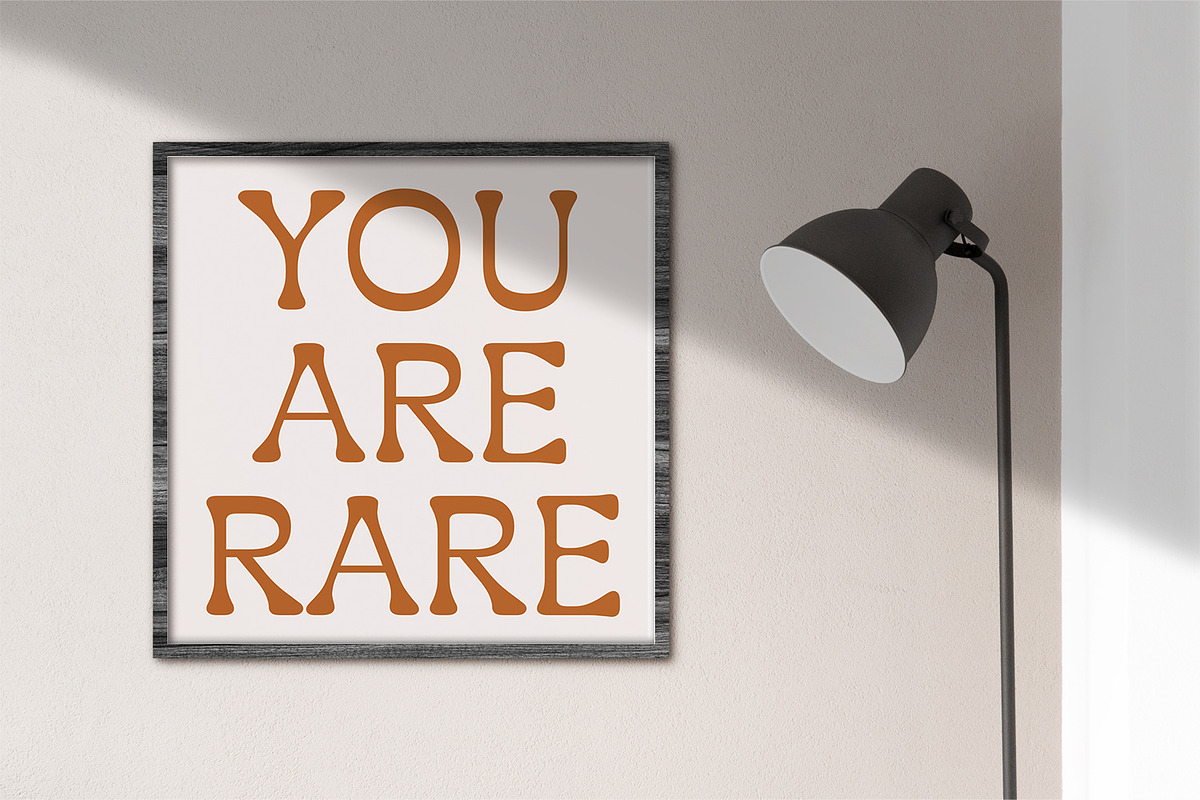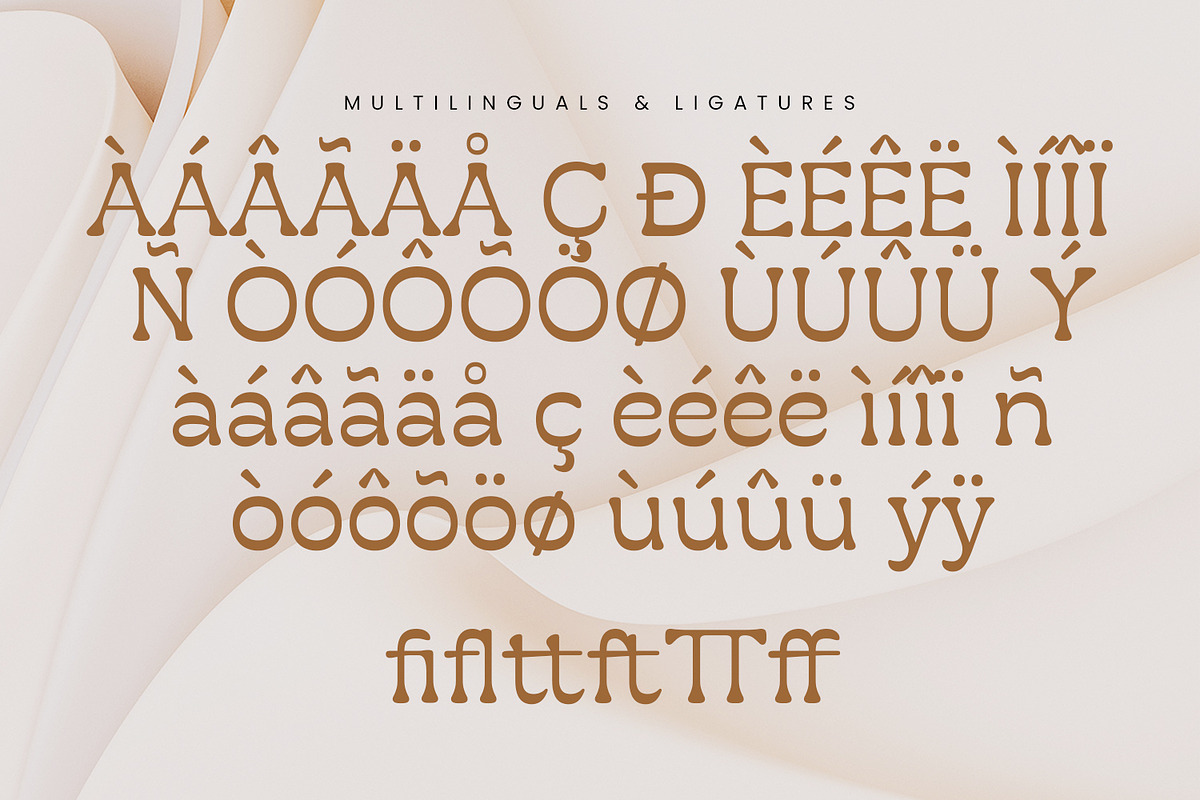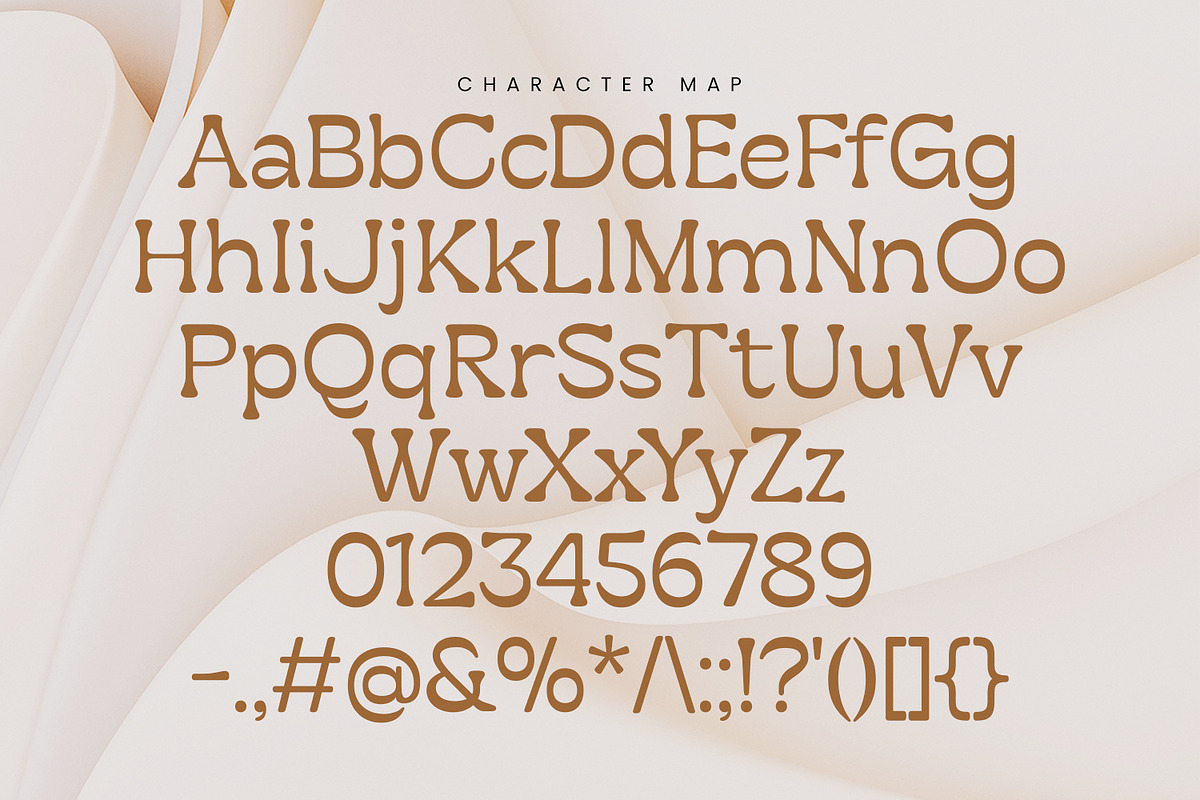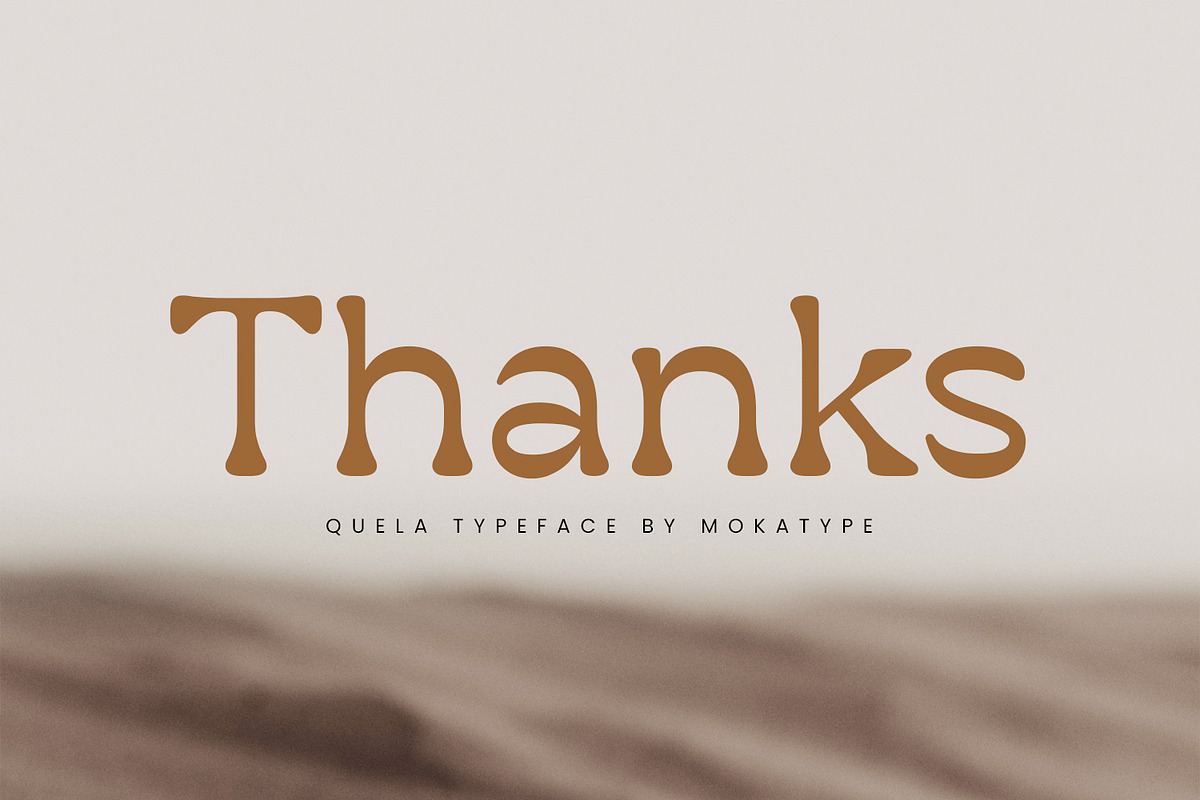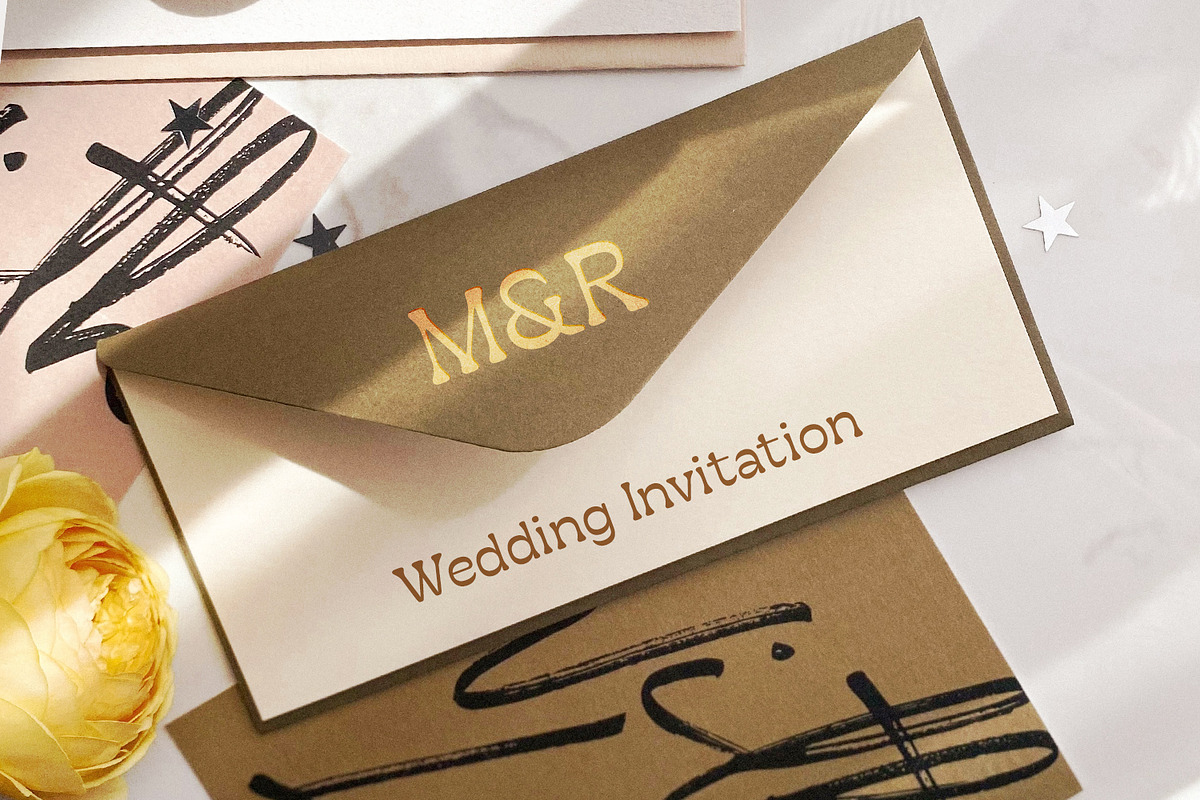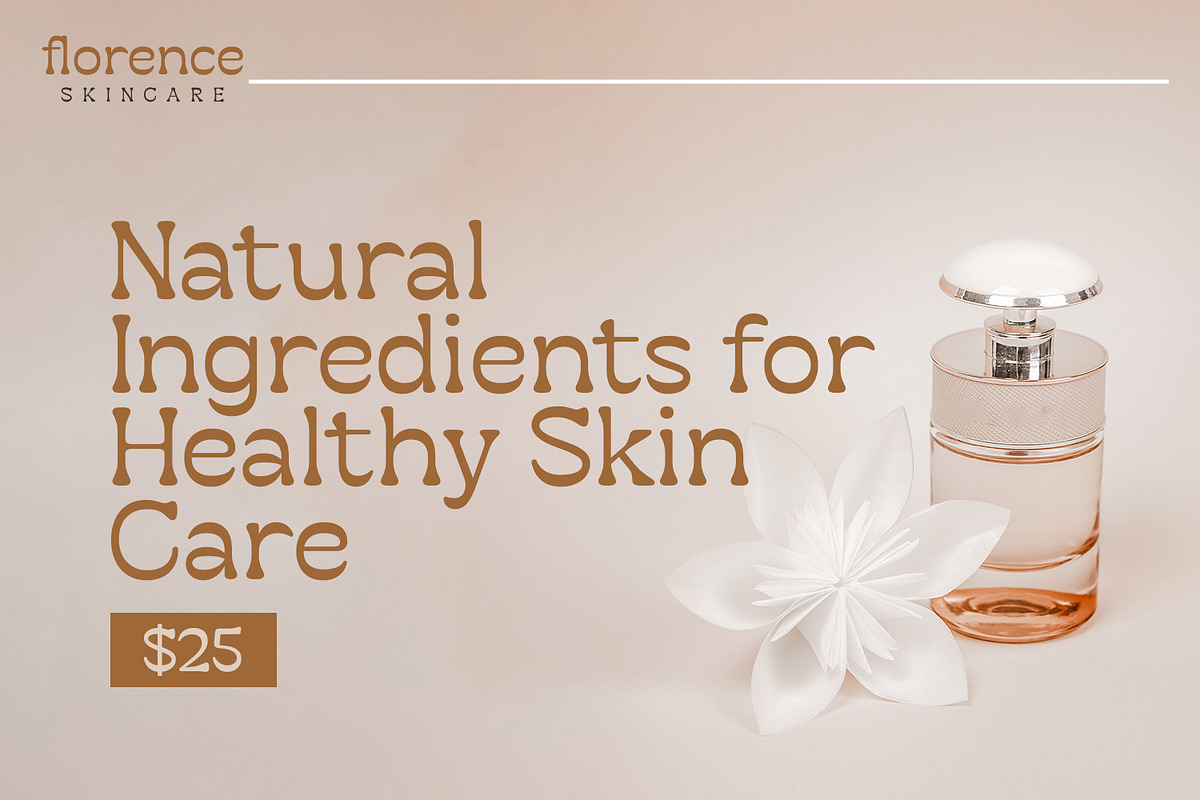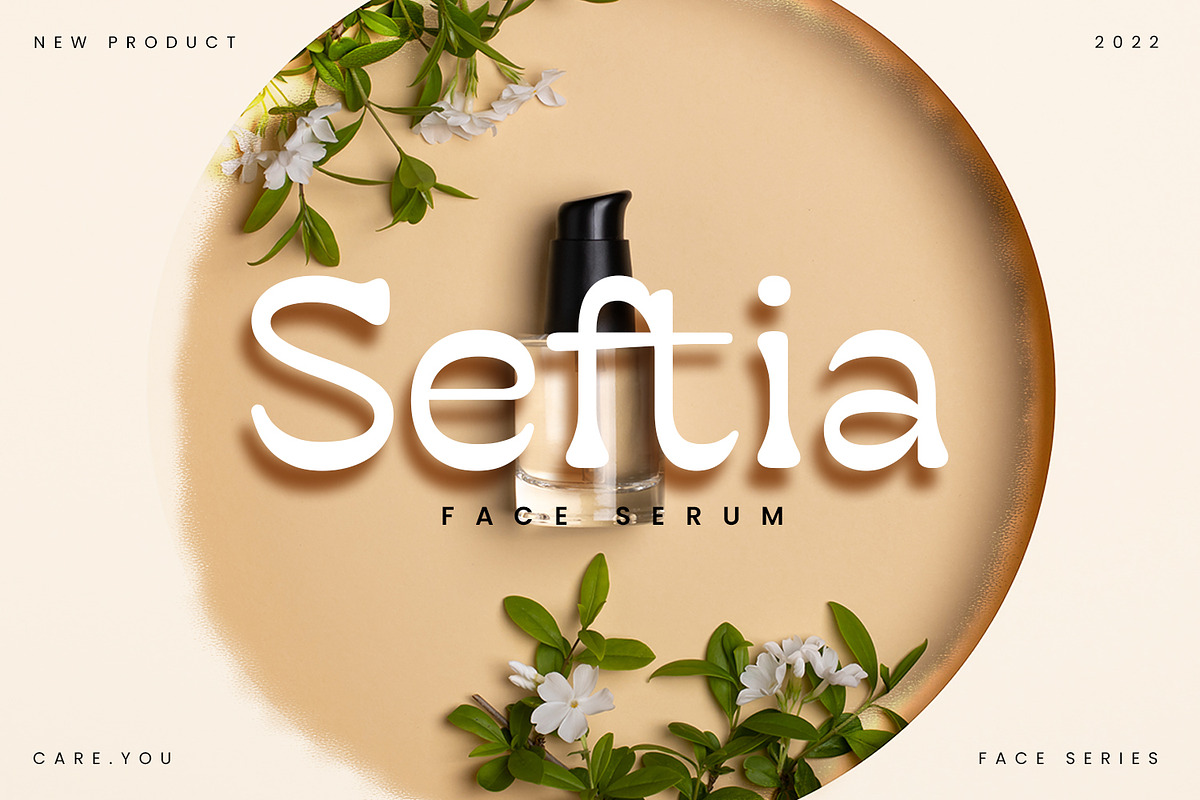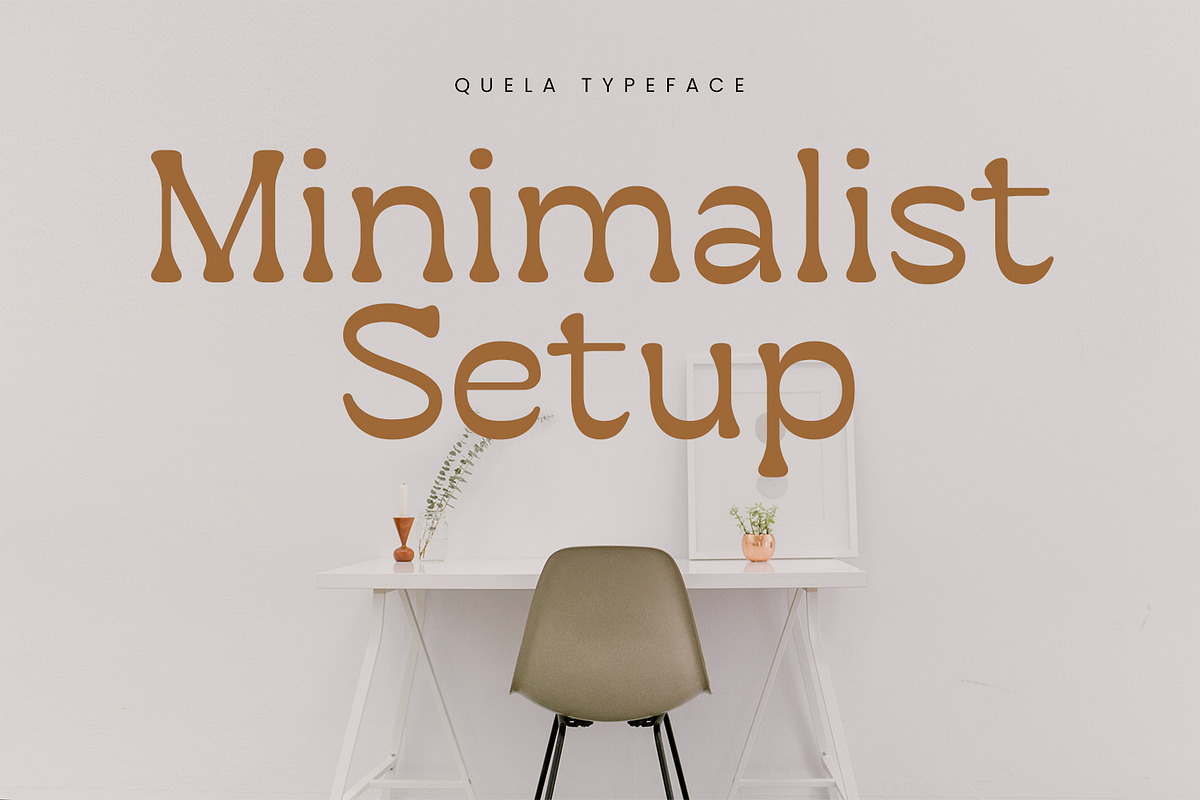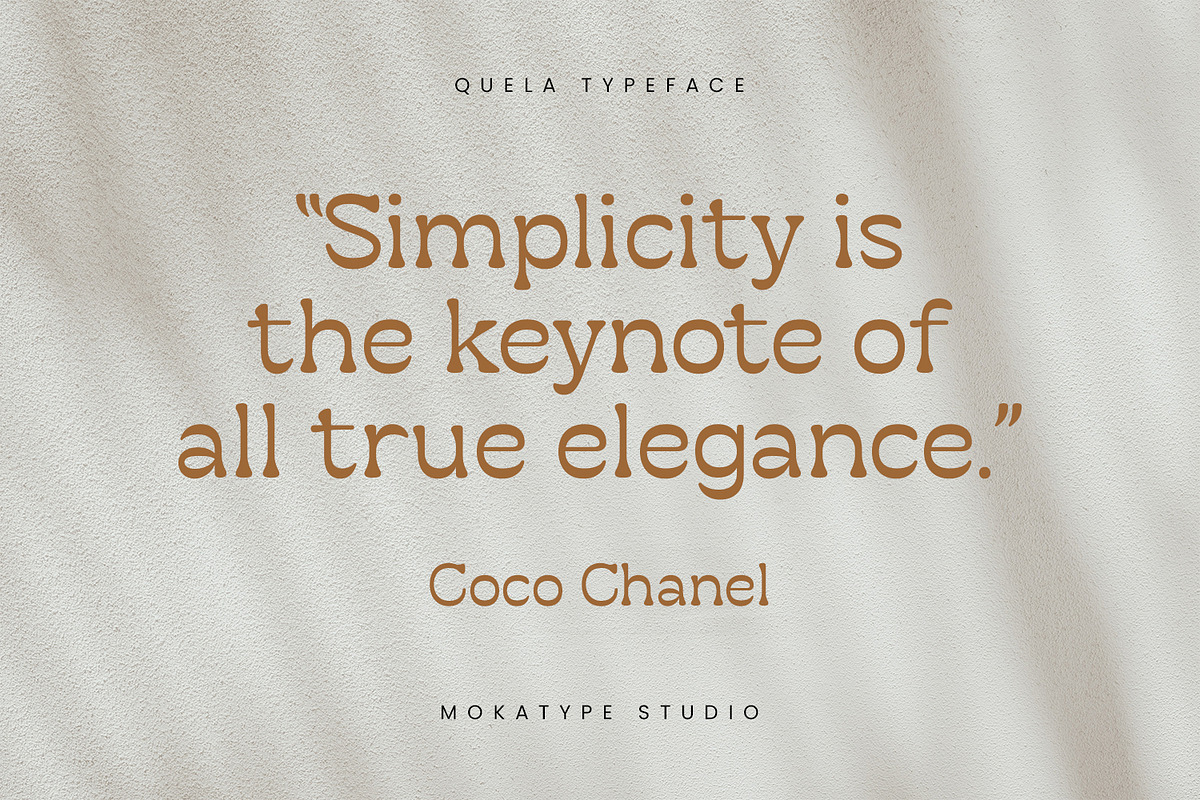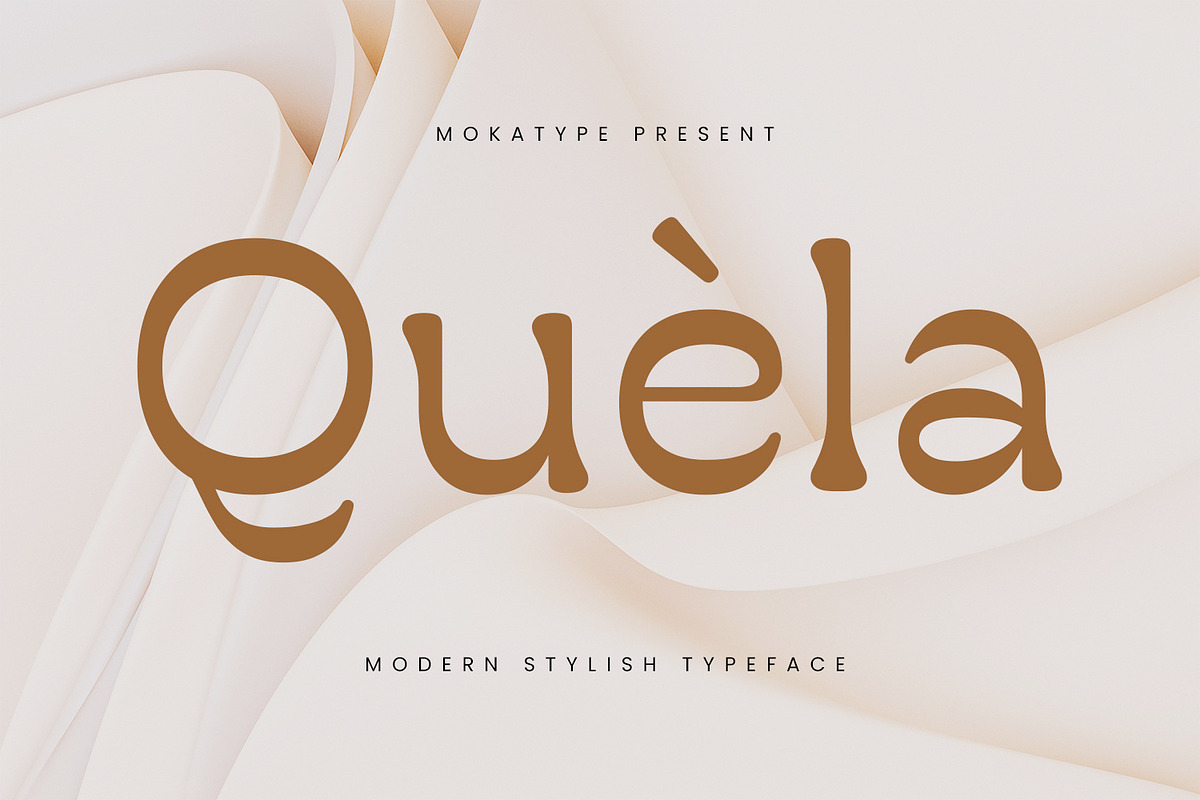
Quela - Stylish Serif
Quela is Reverse Serif Font with round nuances, inspired by retro style. Quela builds as a clean and versatile letterform that fit any display graphics design purposes. And still, this font can be used for long text like quotes and etc.
- Ligatures (Opentype features)